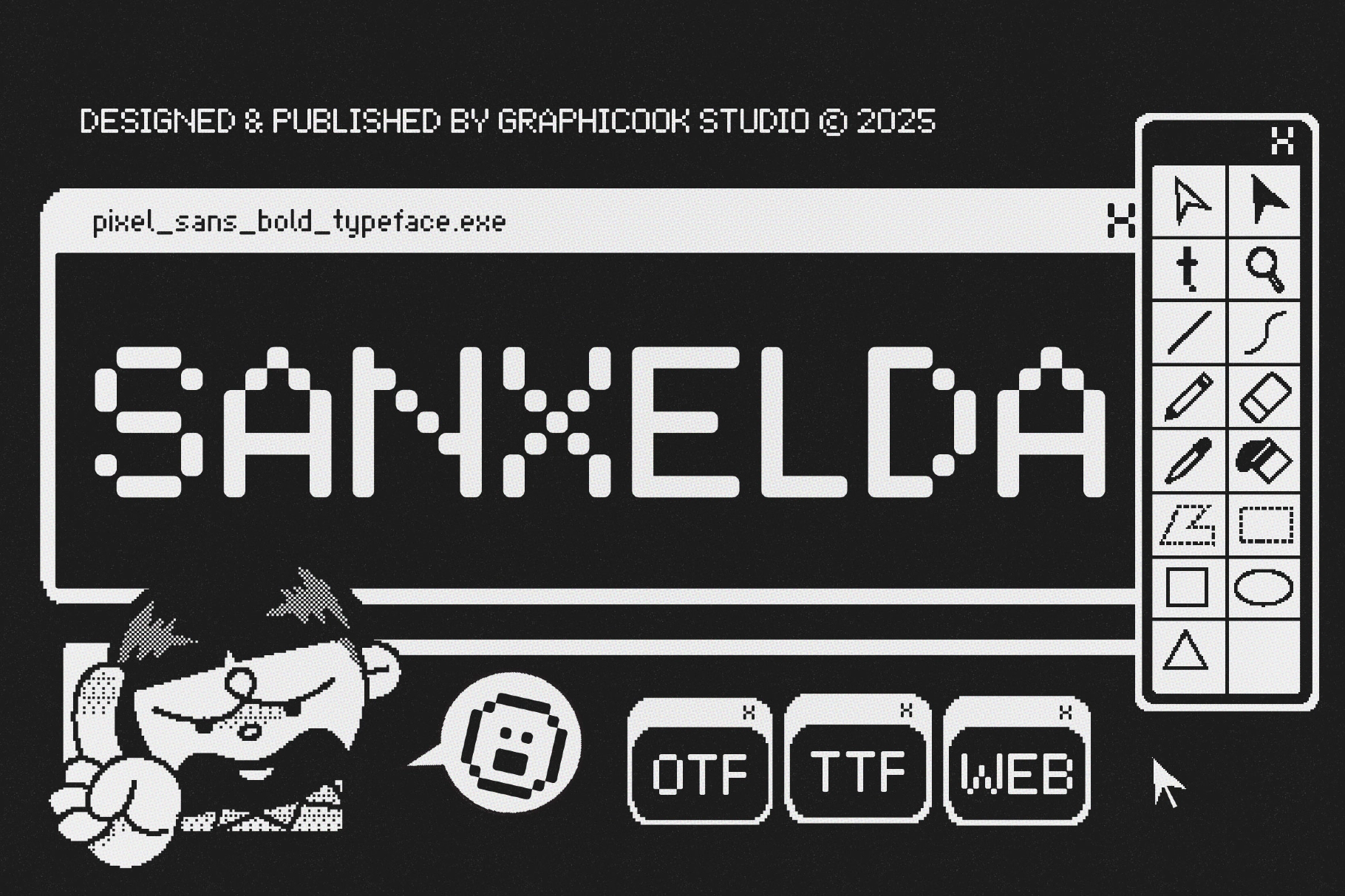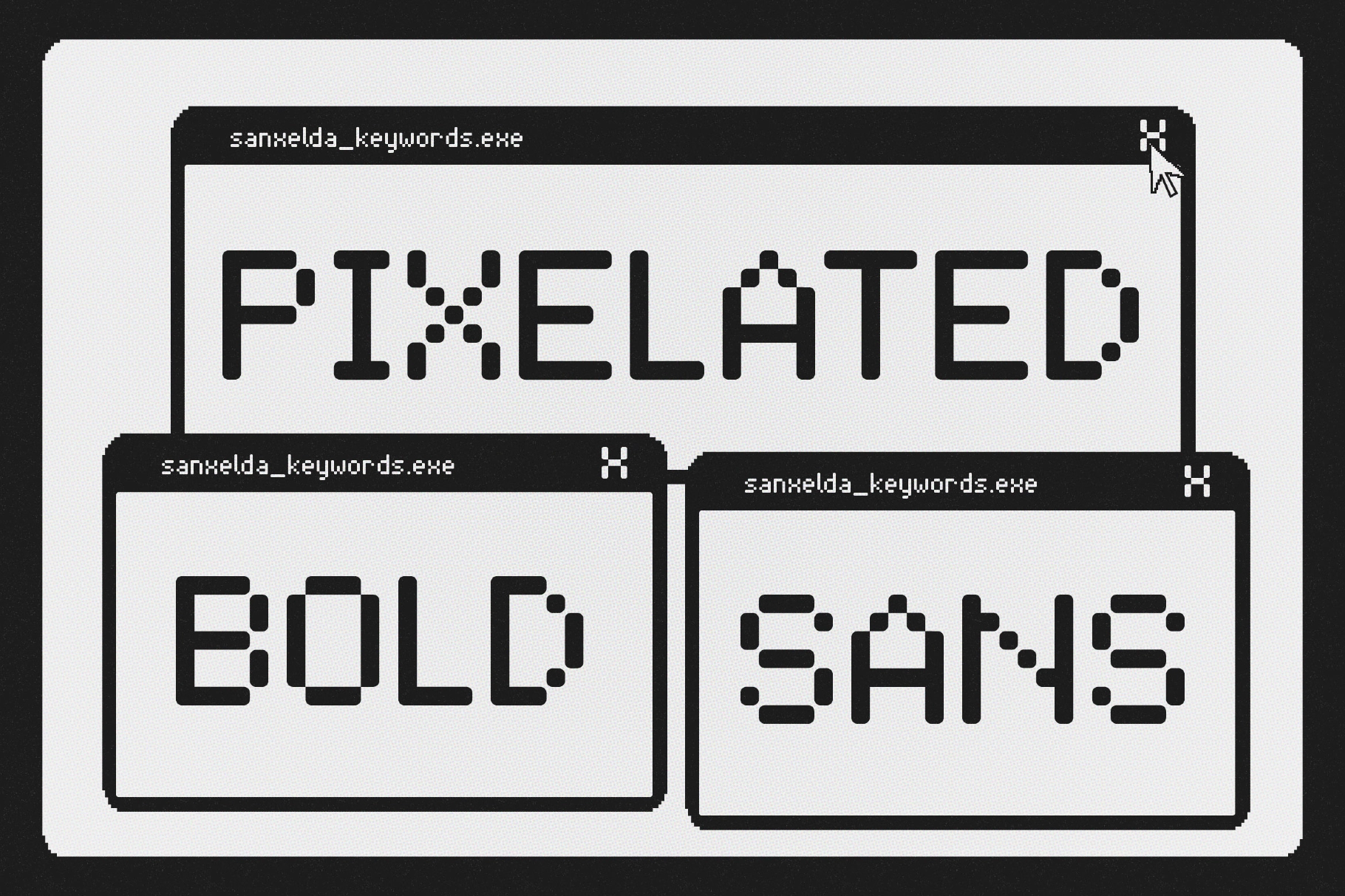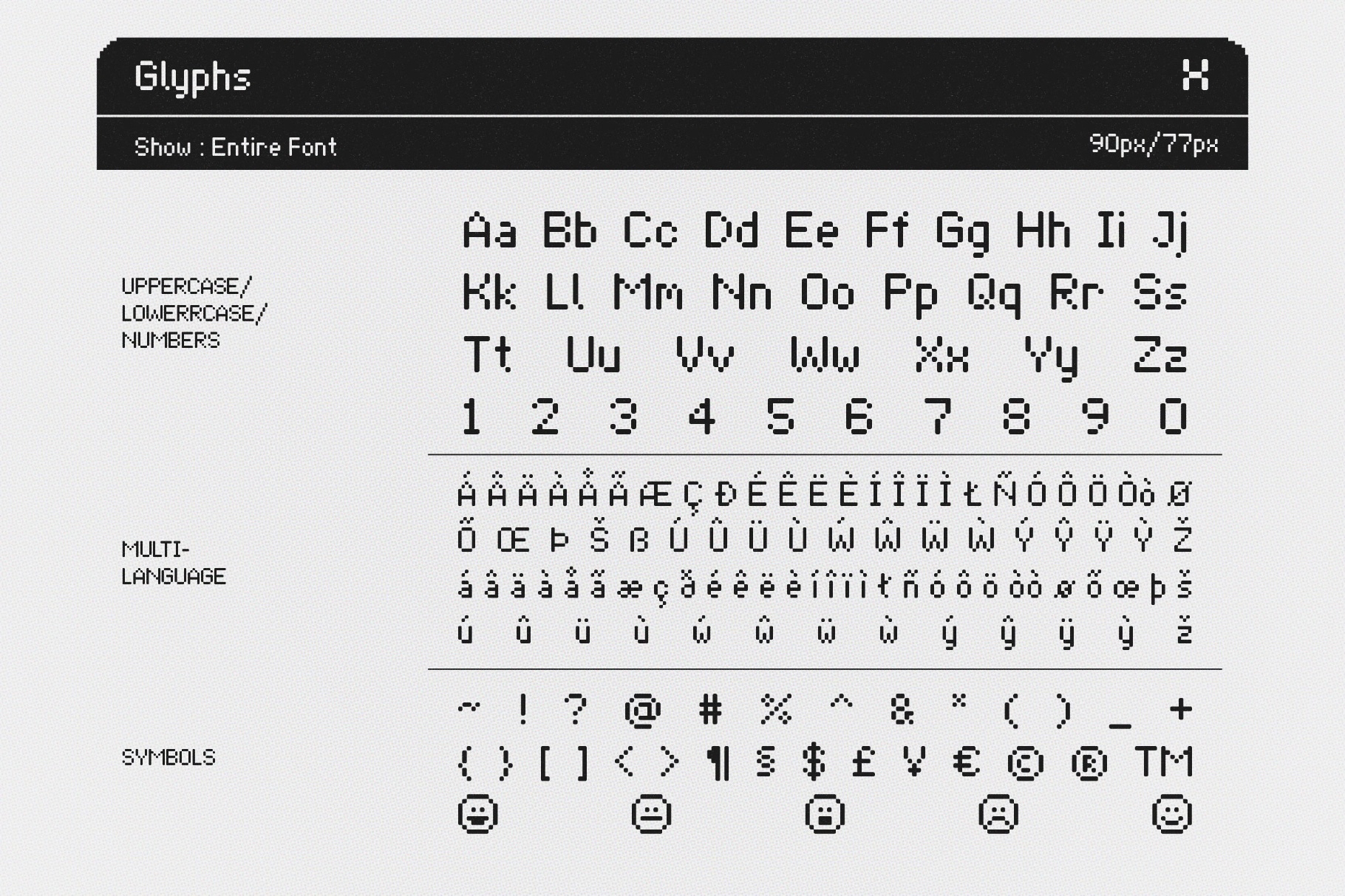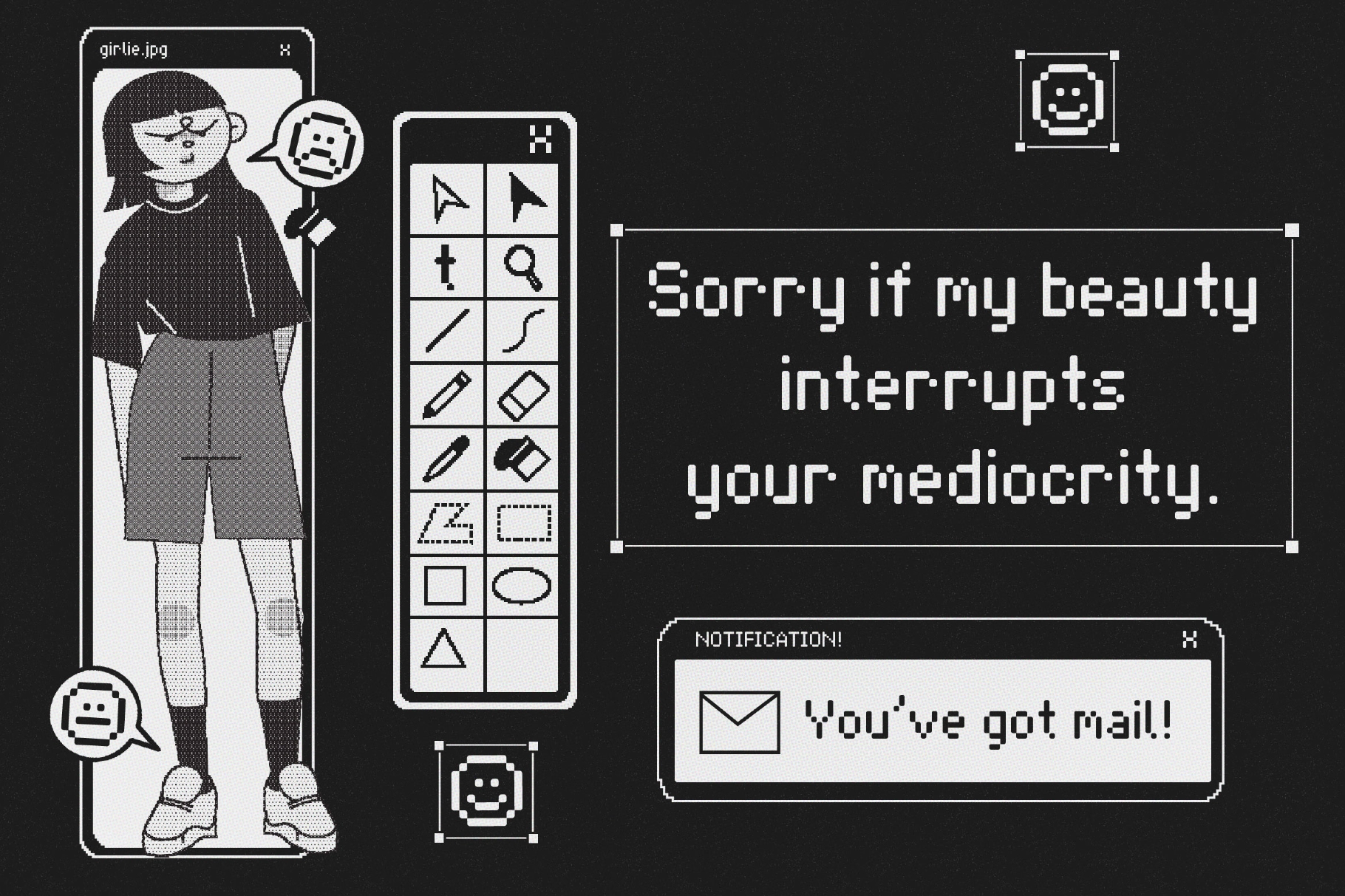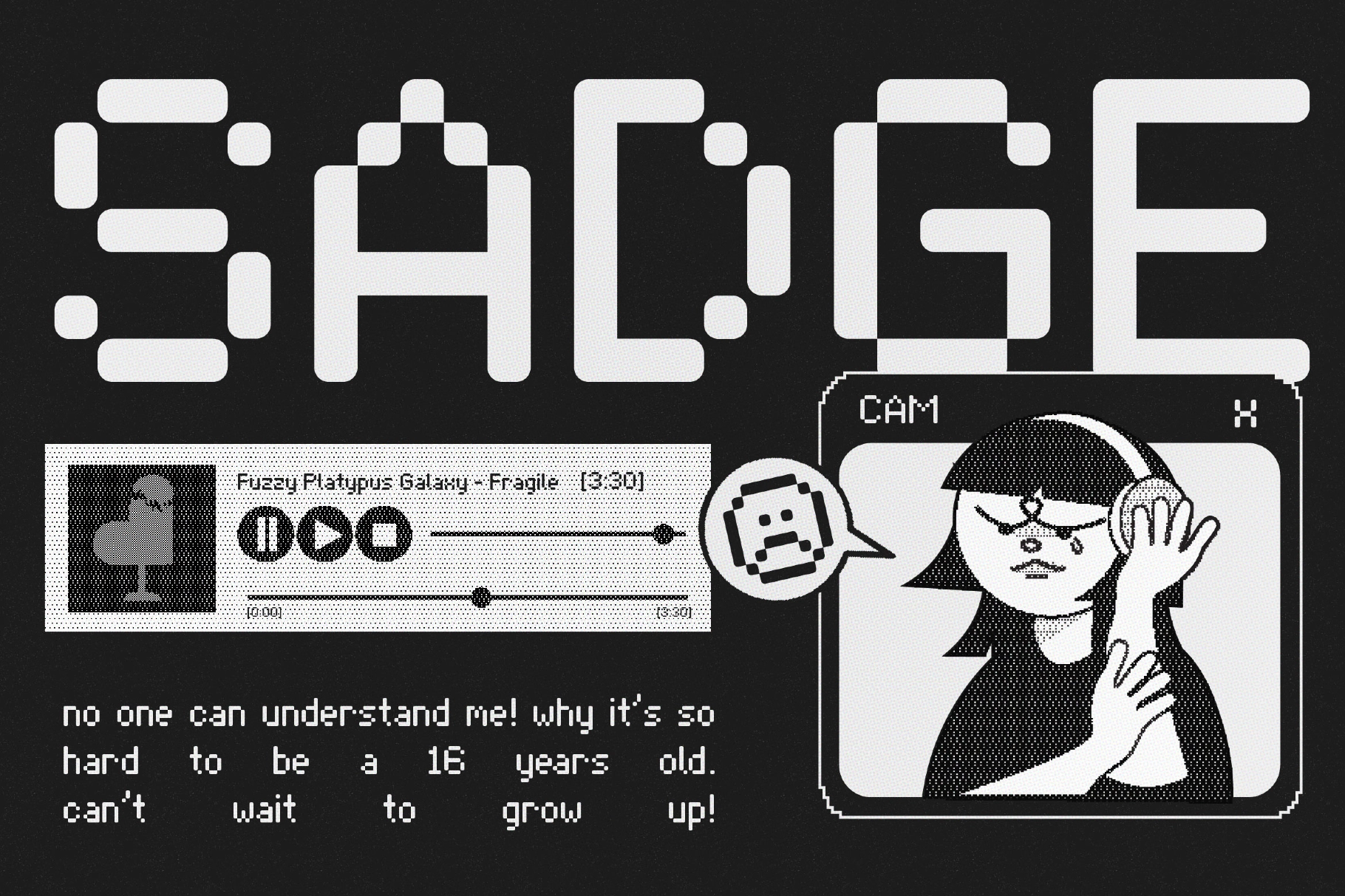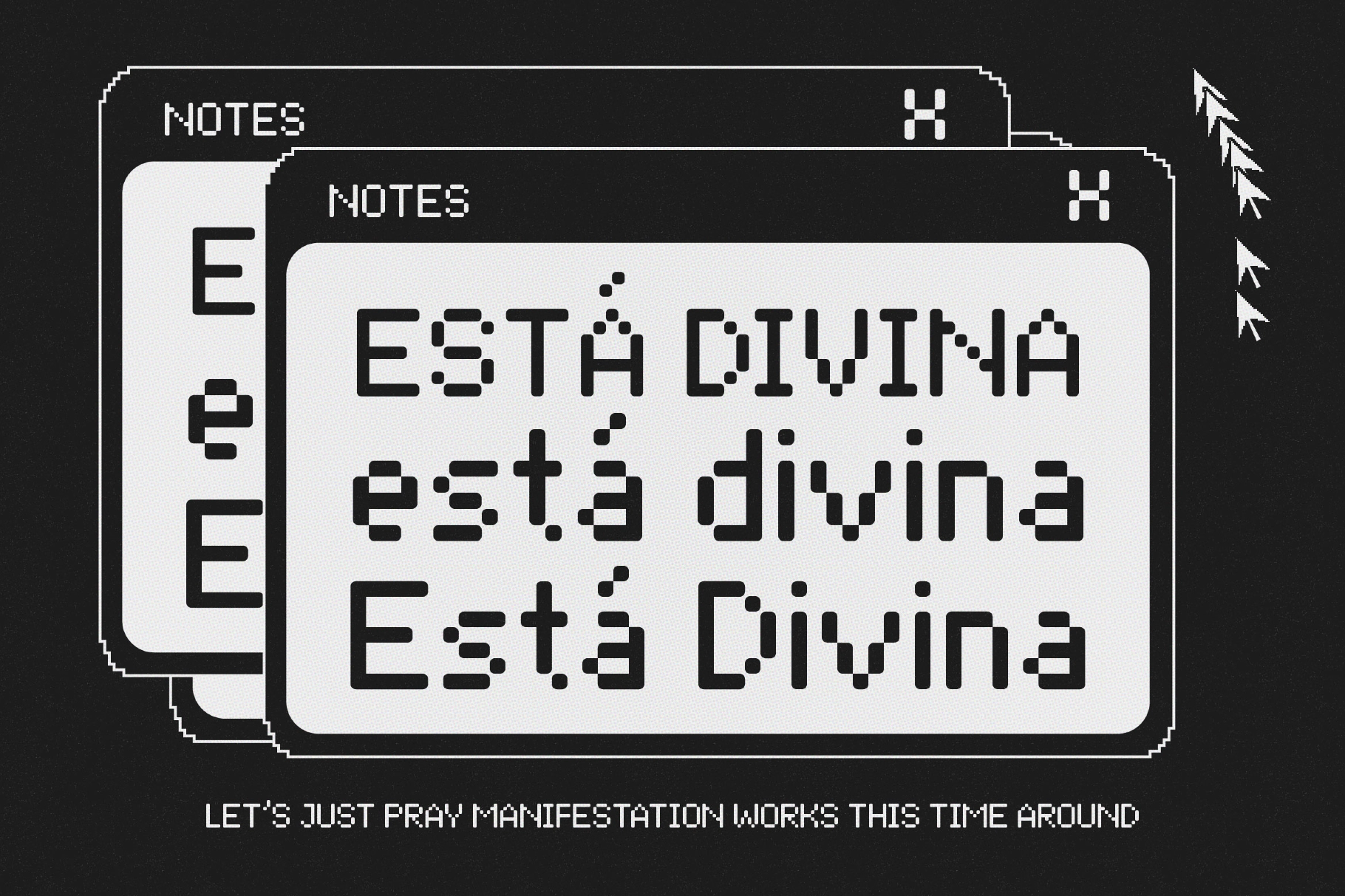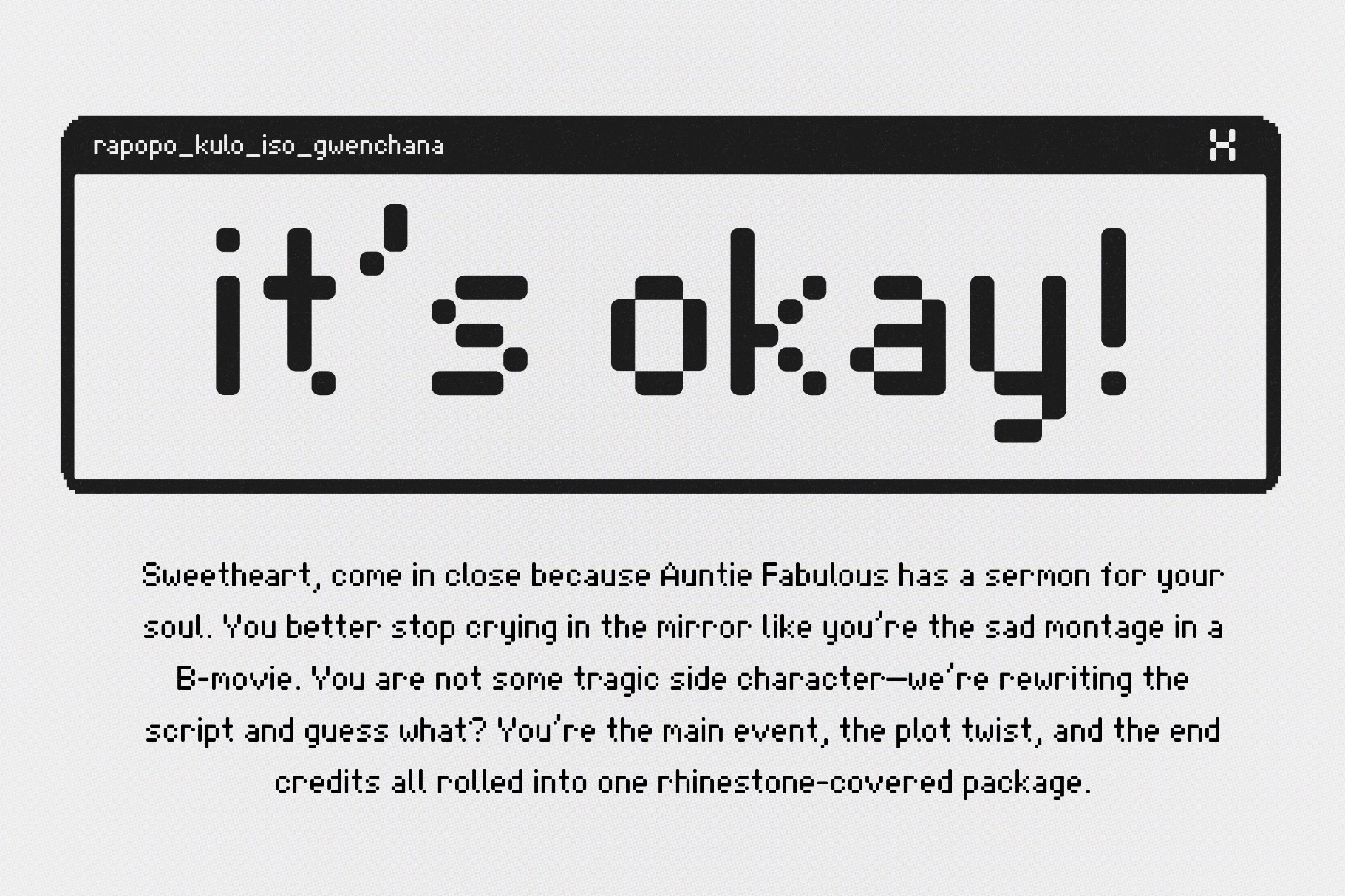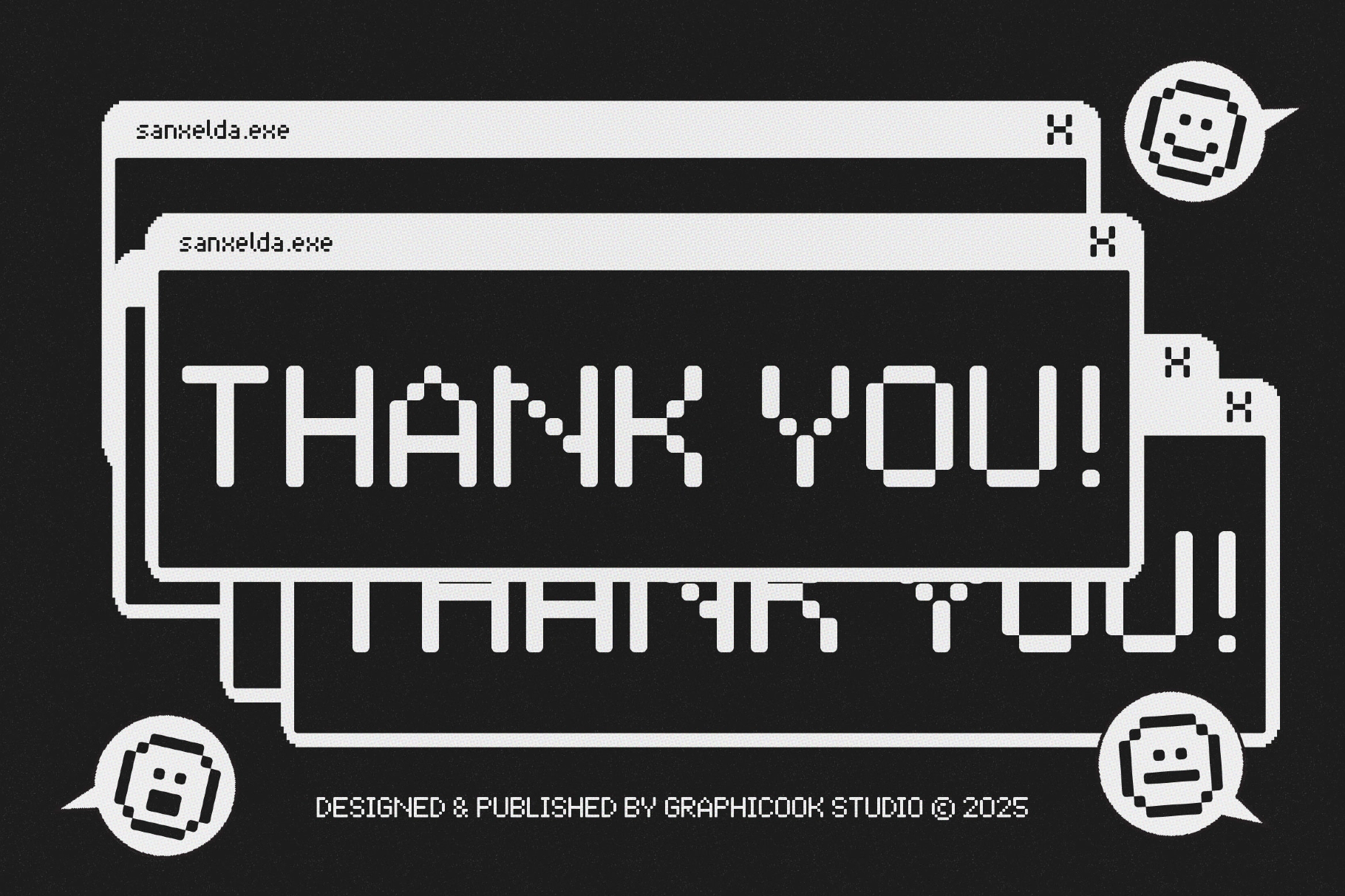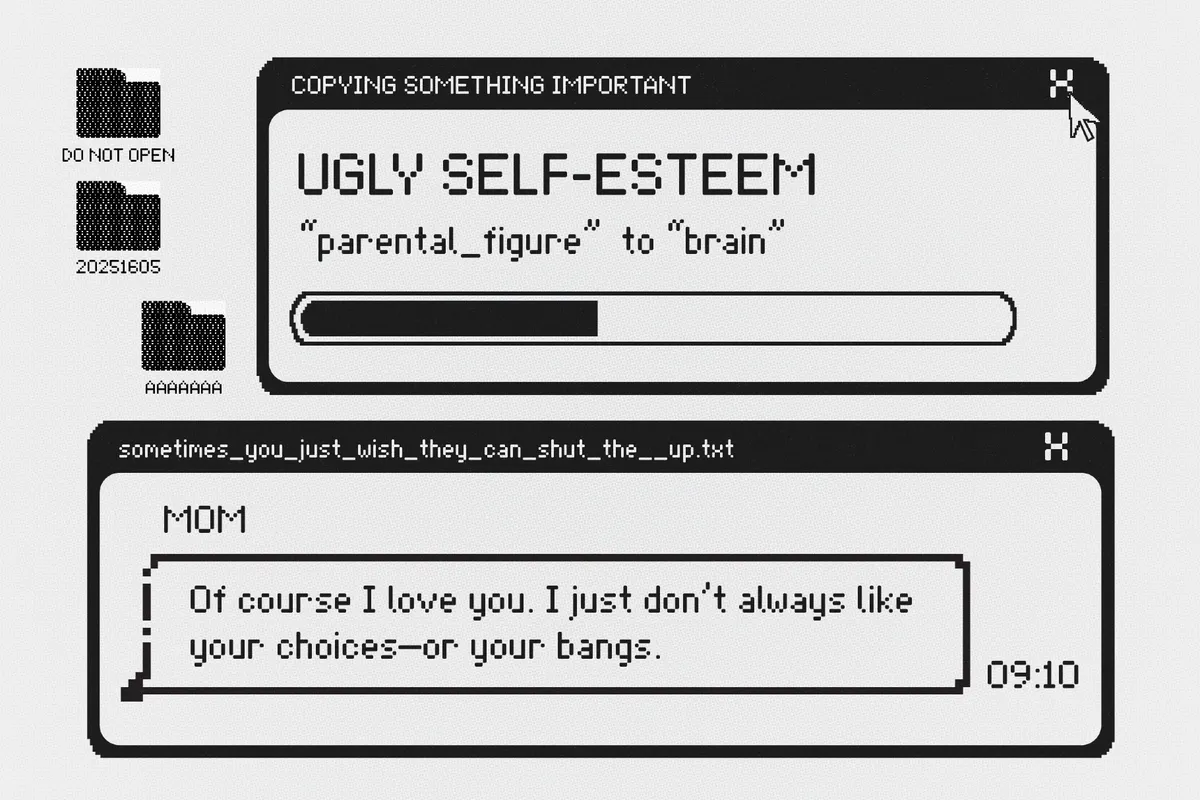
Sanxelda Font
Sanxelda
Sanxelda is an experimental pixel-style font that evokes a digital, low-resolution screen effect. Perfect for games, tech visuals, or cyberpunk-themed designs.